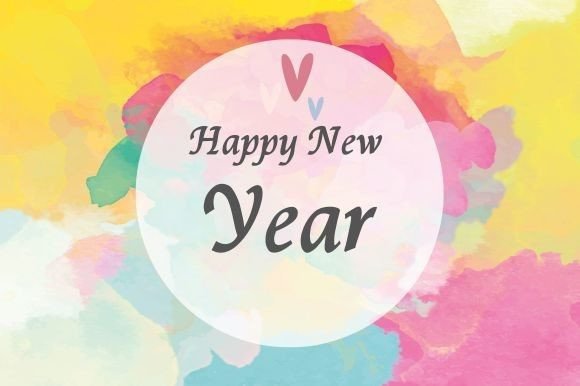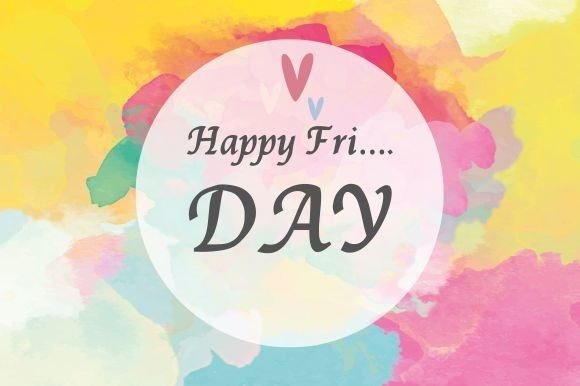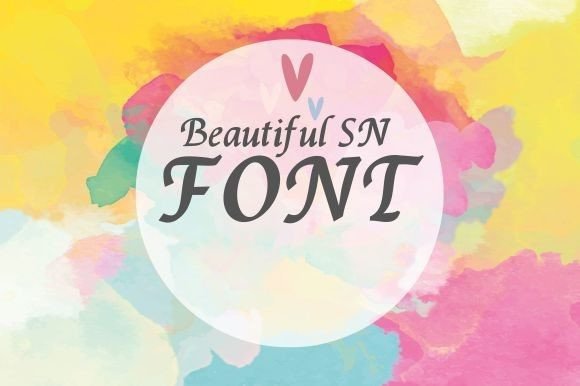
Discover the Charm of Beautiful Sn Font: A Cute and Friendly Handwritten Font
Are you tired of using the same old fonts in your creative projects? Look no further! Introducing Beautiful Sn Font, a delightful and friendly handwritten font that’s sure to add a touch of personality to your designs. In this article, we’ll dive into the world of Beautiful Sn Font and explore its features, benefits, and uses.
What is Beautiful Sn Font?
Beautiful Sn Font is a carefully crafted handwritten font that’s designed to bring a sense of warmth and approachability to your designs. With its cute and friendly vibe, this font is perfect for creative projects that require a personal touch. Whether you’re a designer, crafter, or DIY enthusiast, Beautiful Sn Font is an excellent addition to your font collection.
Key Features of Beautiful Sn Font
- Handwritten style: Beautiful Sn Font boasts a genuine handwritten look that’s both elegant and playful.
- Cute and friendly vibe: This font exudes a sense of warmth and approachability, making it perfect for designs that require a personal touch.
- High-quality design: Beautiful Sn Font is meticulously designed to ensure that it’s clear, readable, and visually appealing.
- Versatile: This font can be used for a wide range of creative projects, from digital designs to print materials.
Benefits of Using Beautiful Sn Font
So, why should you choose Beautiful Sn Font for your creative projects? Here are just a few benefits:
- Adds a personal touch: With Beautiful Sn Font, you can add a personal touch to your designs and make them stand out from the crowd.
- Enhances creativity: This font’s unique and playful style can inspire creativity and help you think outside the box.
- Perfect for DIY projects: Beautiful Sn Font is ideal for DIY enthusiasts who want to add a professional touch to their handmade projects.
- Easy to read: Despite its handwritten style, Beautiful Sn Font is clear and easy to read, making it perfect for body text and headings.
Uses of Beautiful Sn Font
Beautiful Sn Font is an incredibly versatile font that can be used for a wide range of creative projects, including:
- Digital designs: Use Beautiful Sn Font in your digital designs, such as social media graphics, blog posts, and website headers.
- Print materials: This font is perfect for print materials, including brochures, flyers, posters, and business cards.
- DIY projects: Add a professional touch to your DIY projects, such as handmade cards, gift tags, and scrapbooking.
- Crafting: Beautiful Sn Font is ideal for crafters who want to create personalized and unique projects, such as knitting patterns, sewing labels, and craft tutorials.
In conclusion, Beautiful Sn Font is a delightful and friendly handwritten font that’s perfect for creative projects that require a personal touch. With its cute and friendly vibe, high-quality design, and versatility, this font is an excellent addition to any designer’s or crafter’s font collection. So why not give Beautiful Sn Font a try and see the amazing results for yourself?